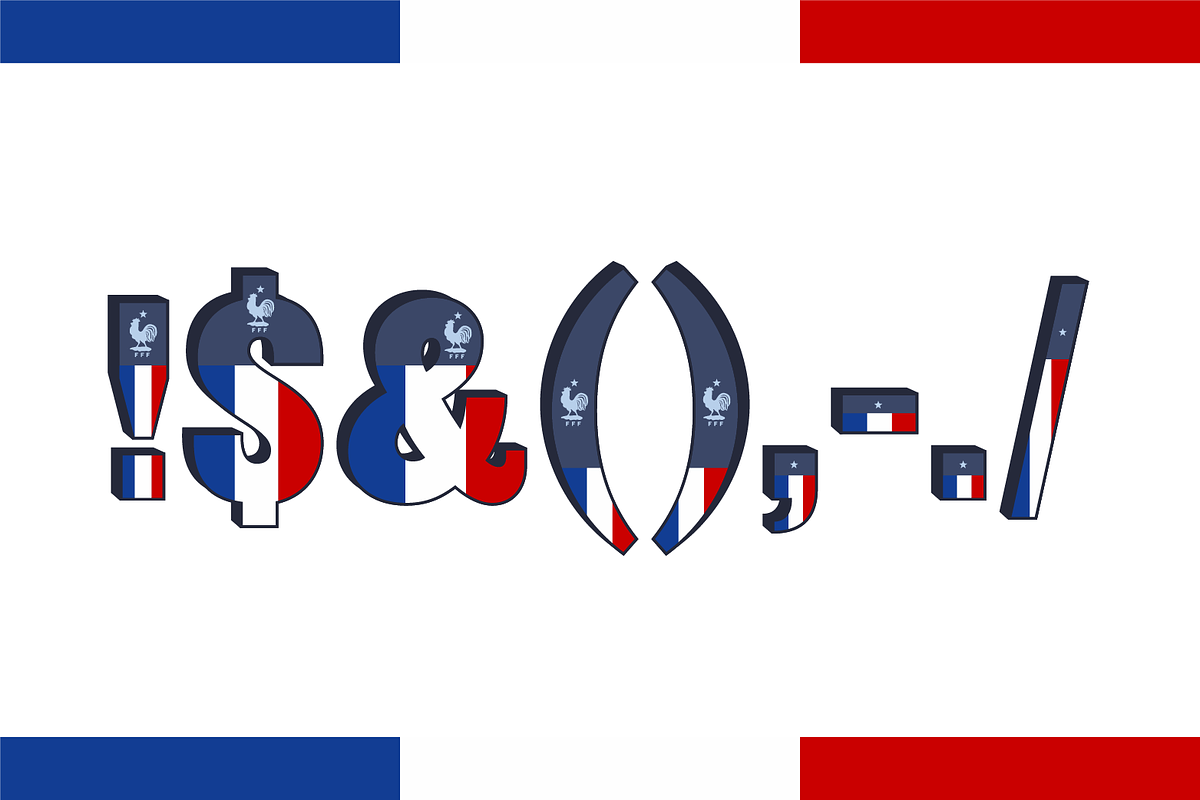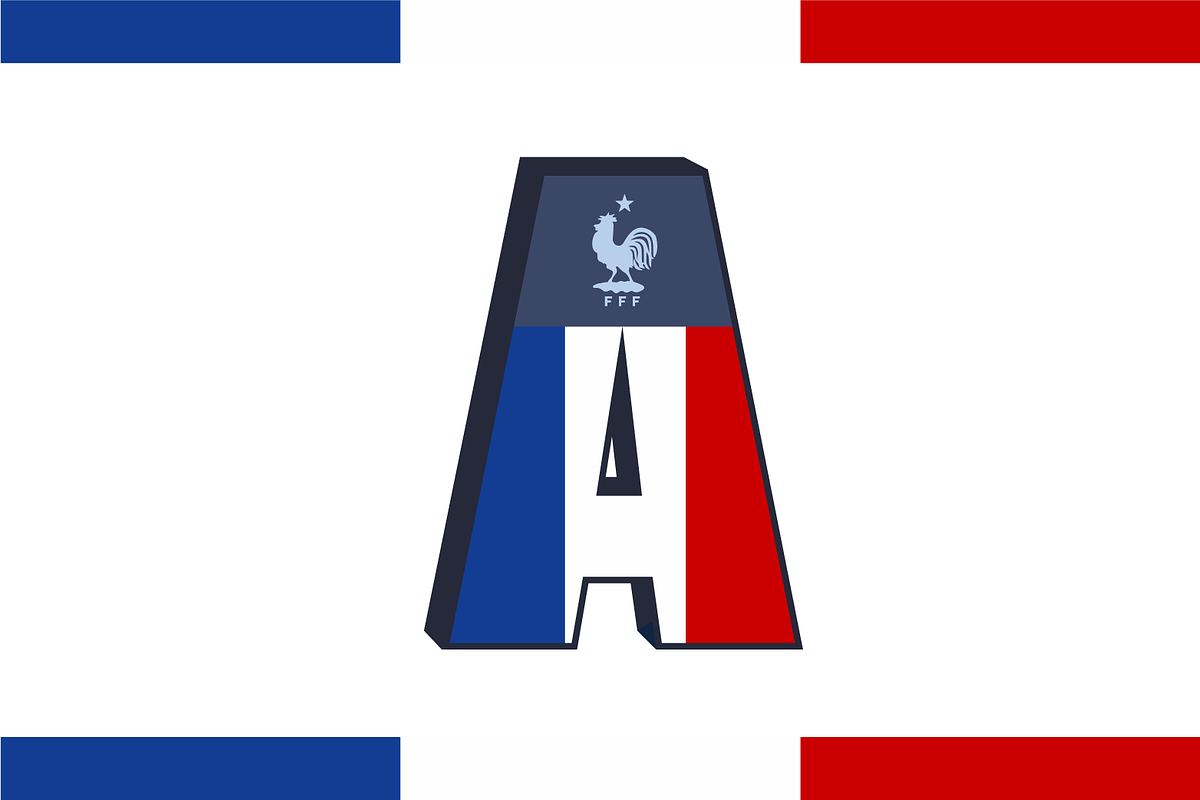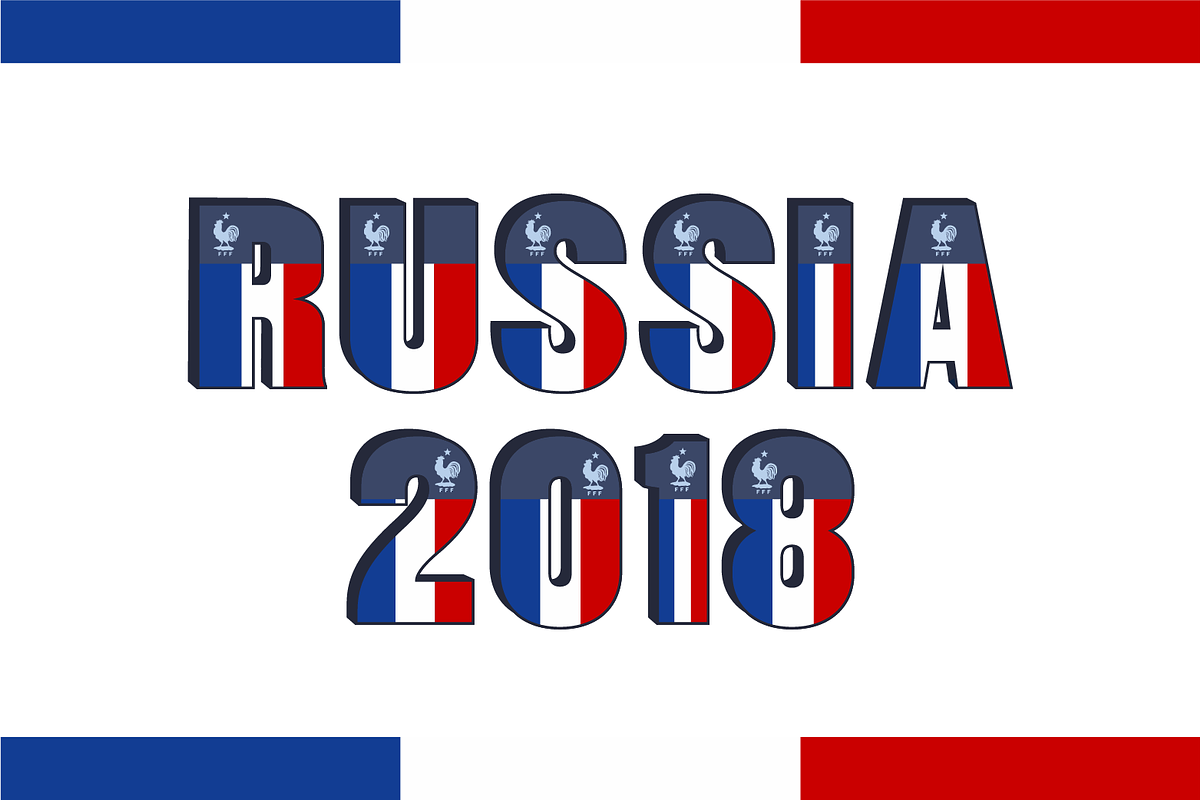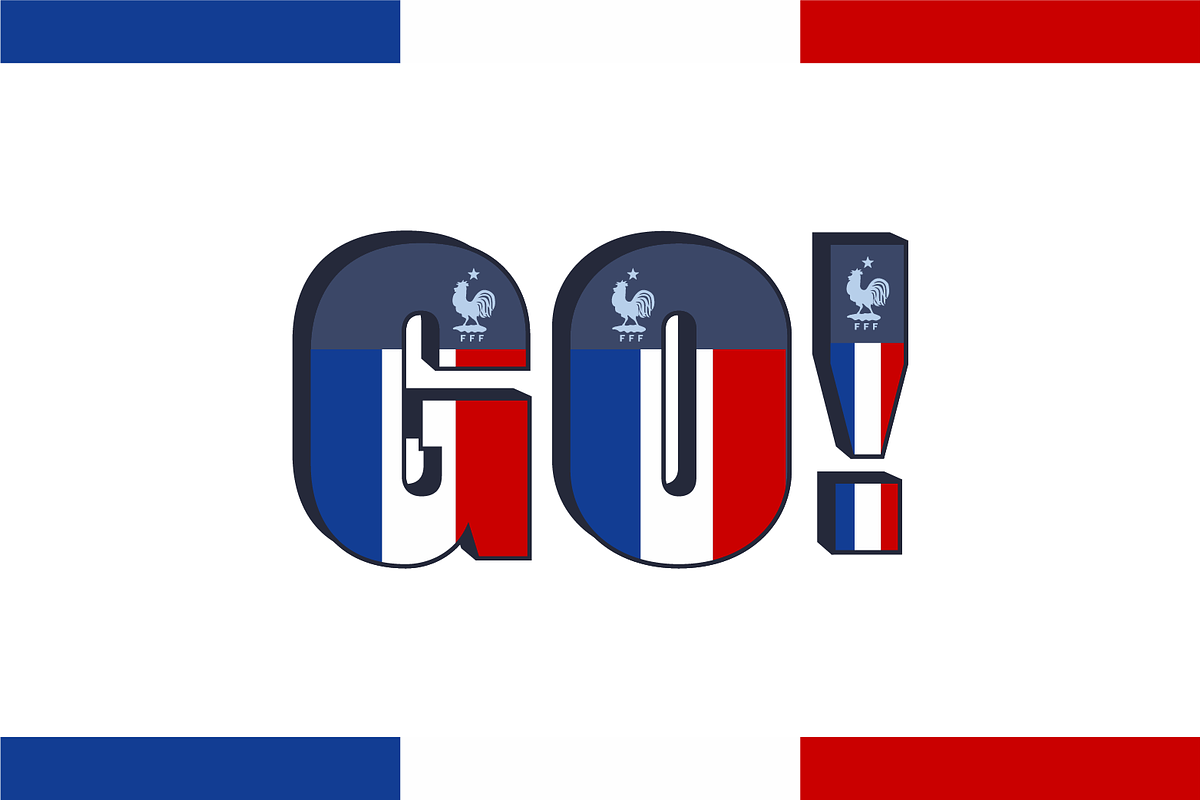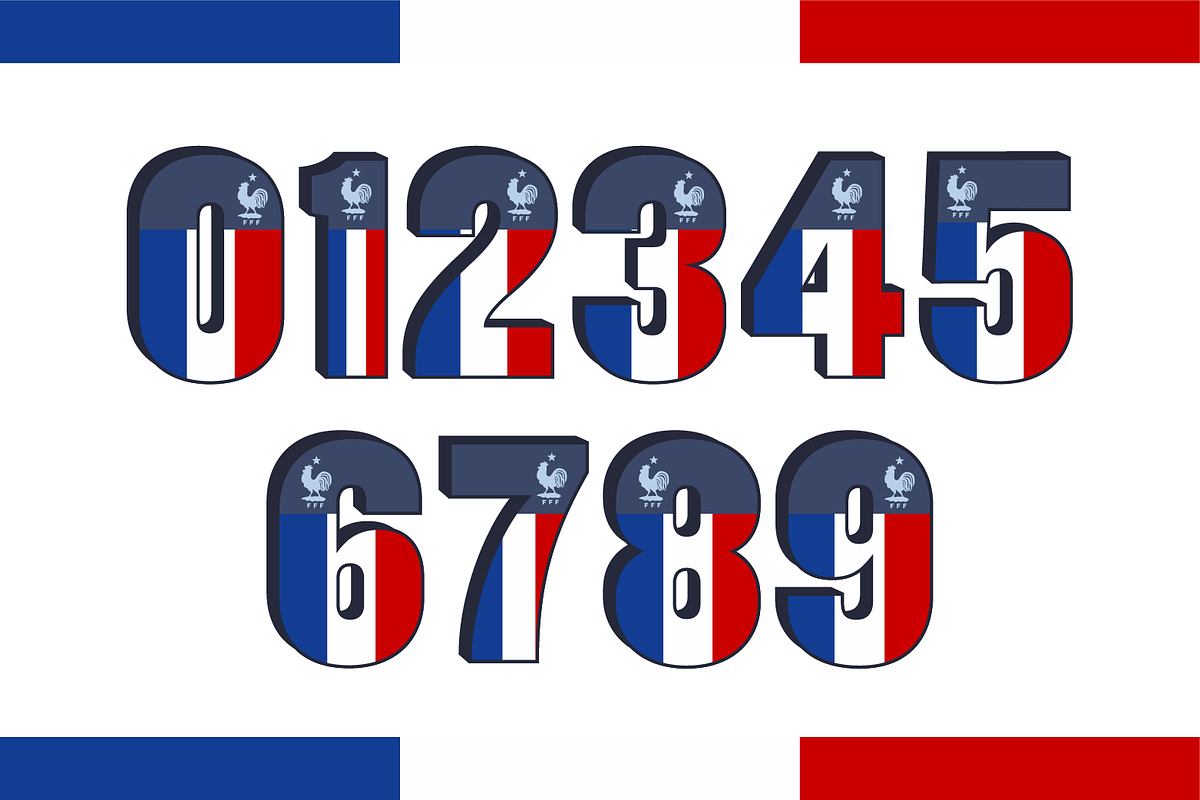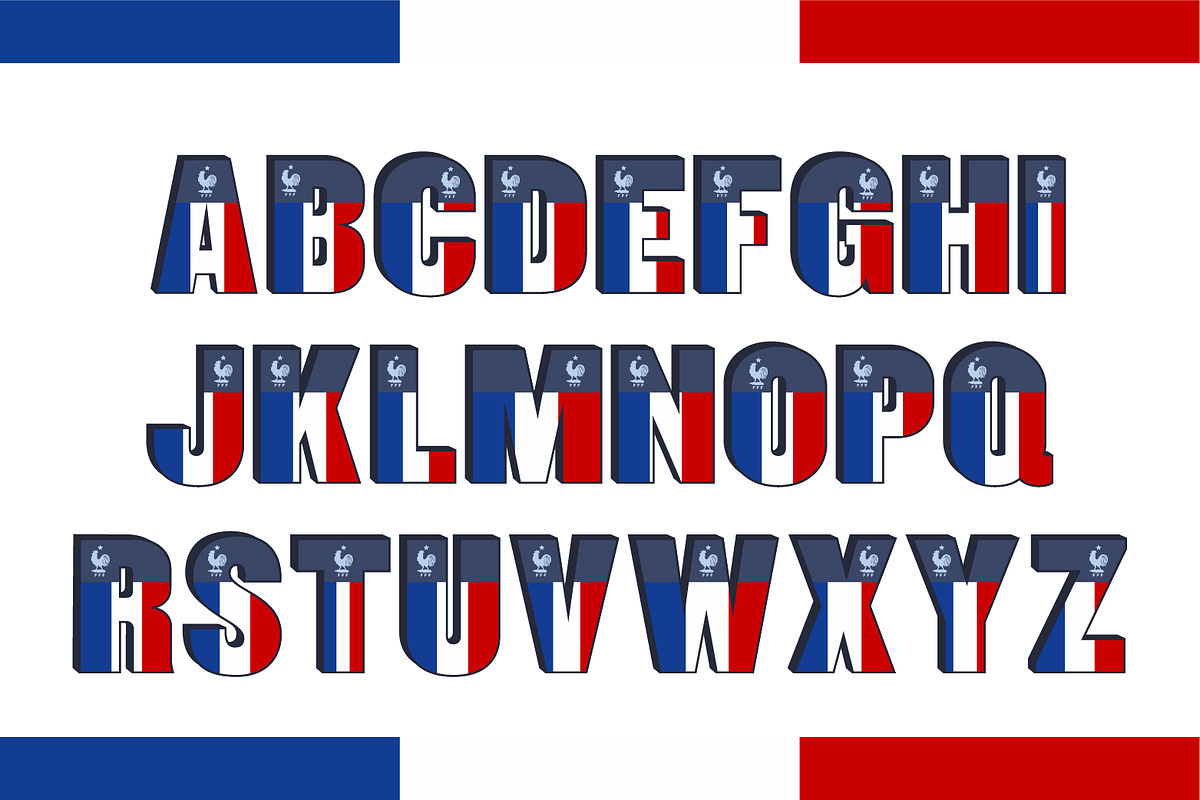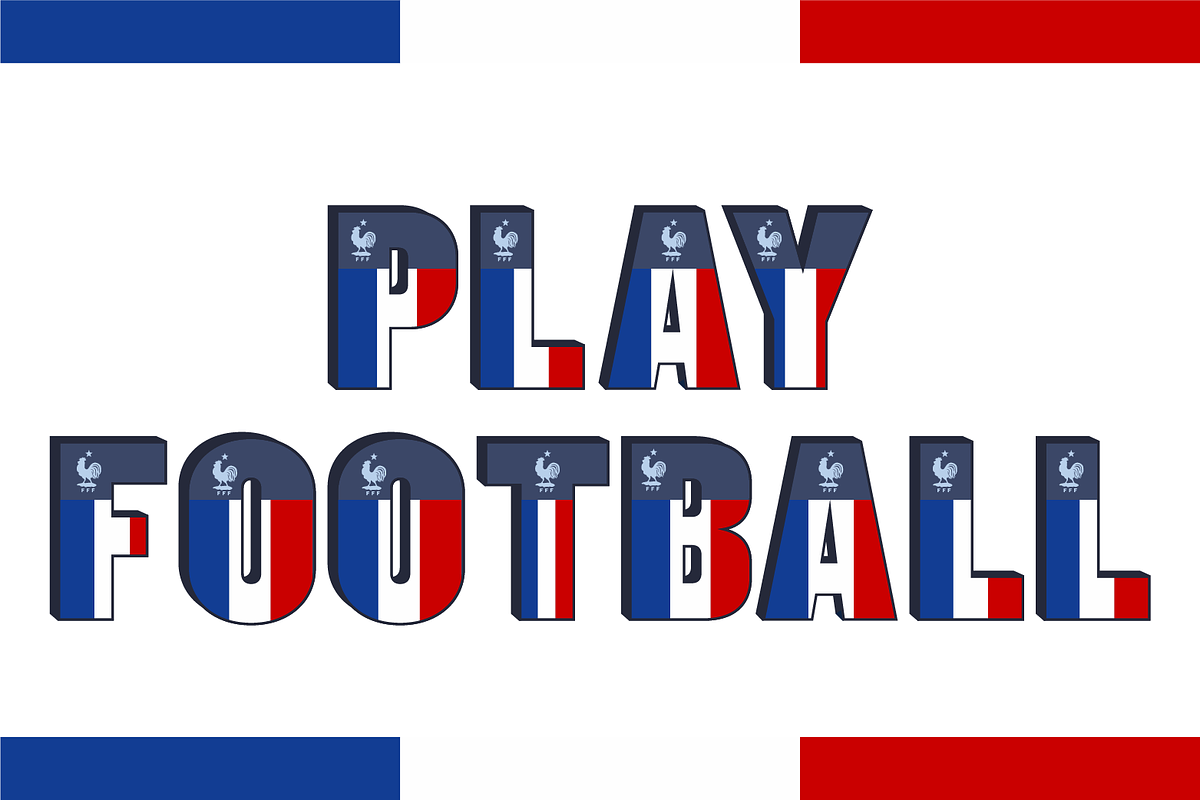
France Font
Typography designed for and now you can have it too!
Why France Font is worth a look
France Font by yaisalinas fits naturally into Branding, posters, packaging, typography.